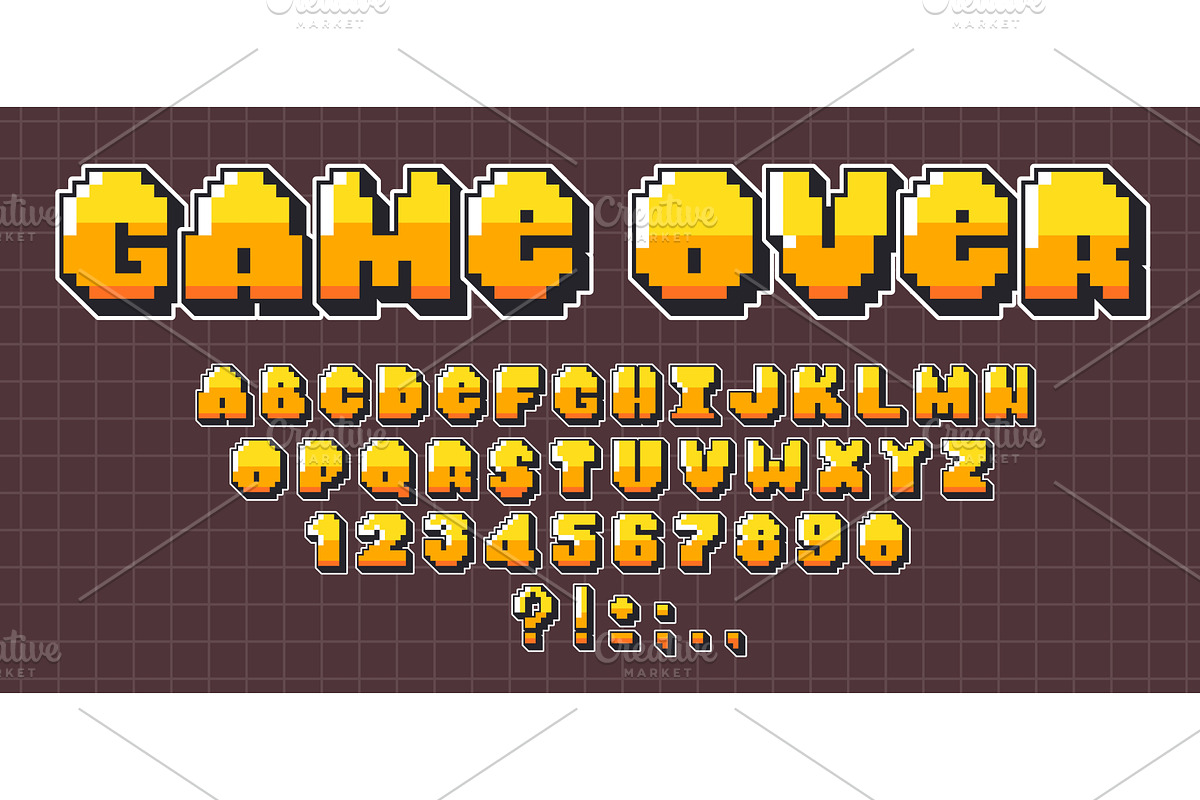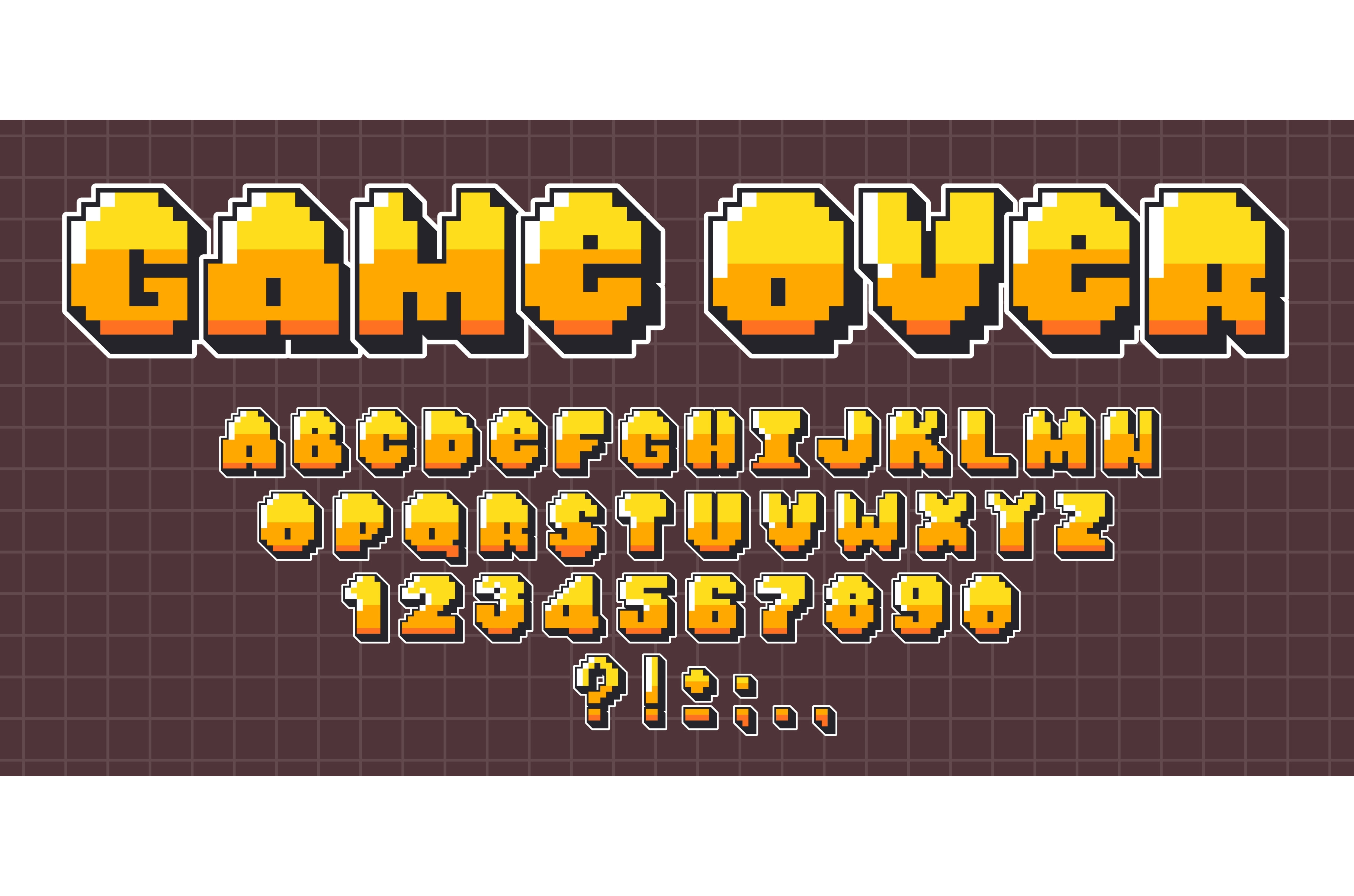
Retro pixel font set isolated on
Retro pixel font set isolated on computer screen background. Vector cartoon illustration of geometric English ABC letters, numbers, punctuation signs, arcade game display, 8-bit text design elements